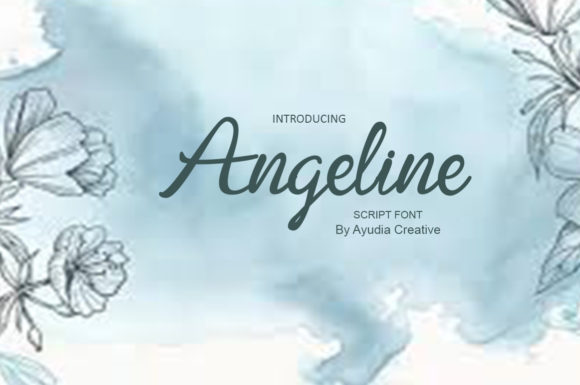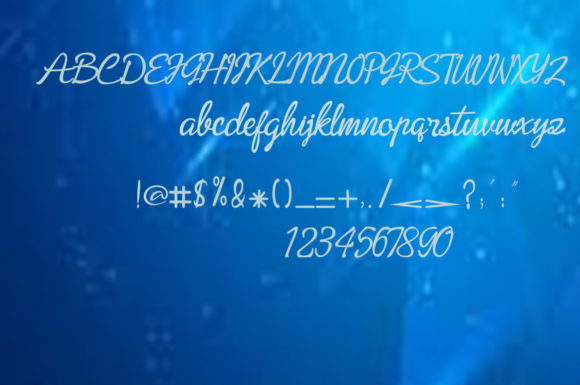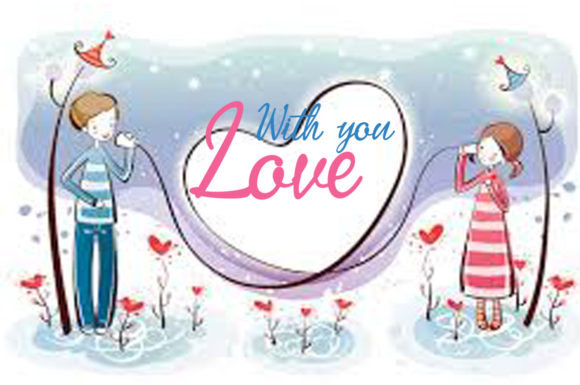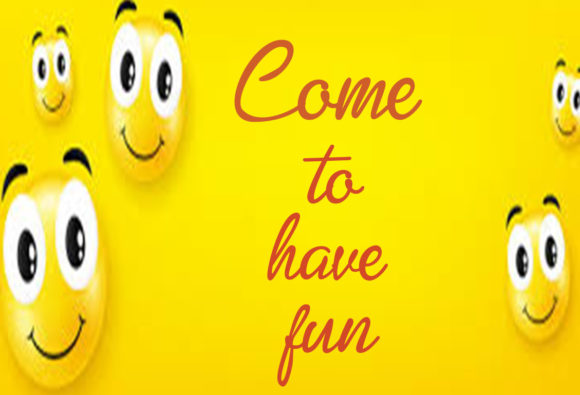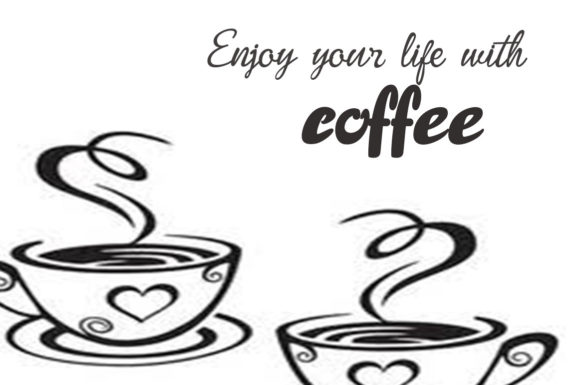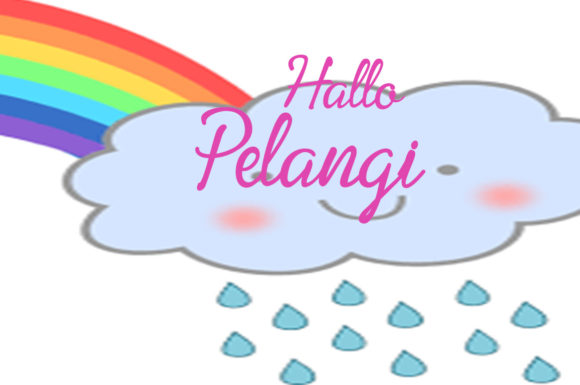
Angeline Font
AngelineĀ is a sweet and delicate handwritten font. Dainty and joyful, this font will be ideal for writing wedding invitations, cards or any other design that may need a romantic, personalized touch!